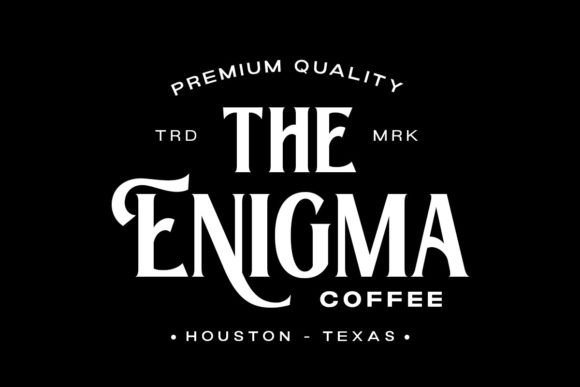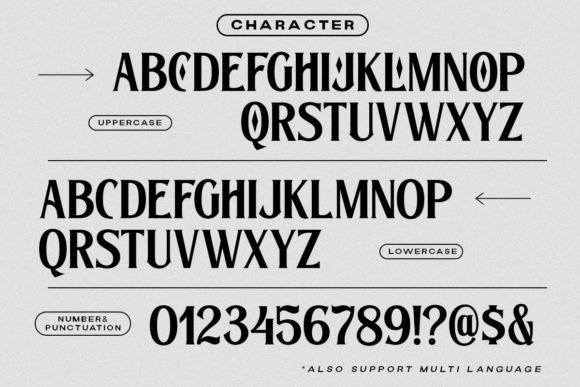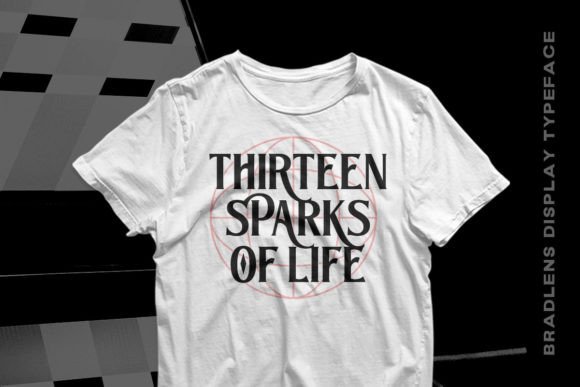
The Bradlens is a sophisticated modern serif font. This typeface has been made carefully to ensure premium quality and a luxury feel. This typeface can be used for modern themes or vintage looks. Very suitable for a logo, headline, title, and other formal forms such as invitations, labels, magazines, books, greeting/wedding cards, packaging, fashion, makeup, stationery, novels, labels, or any type of advertising purpose.
The Bradlens Font